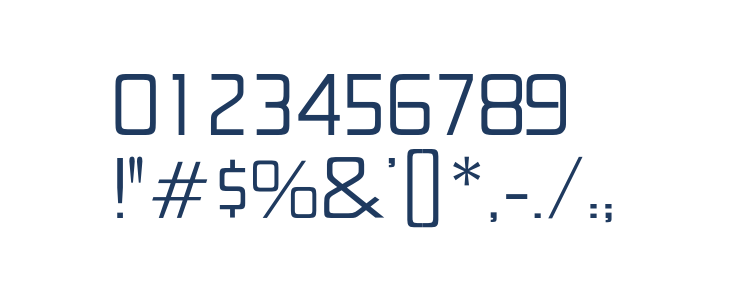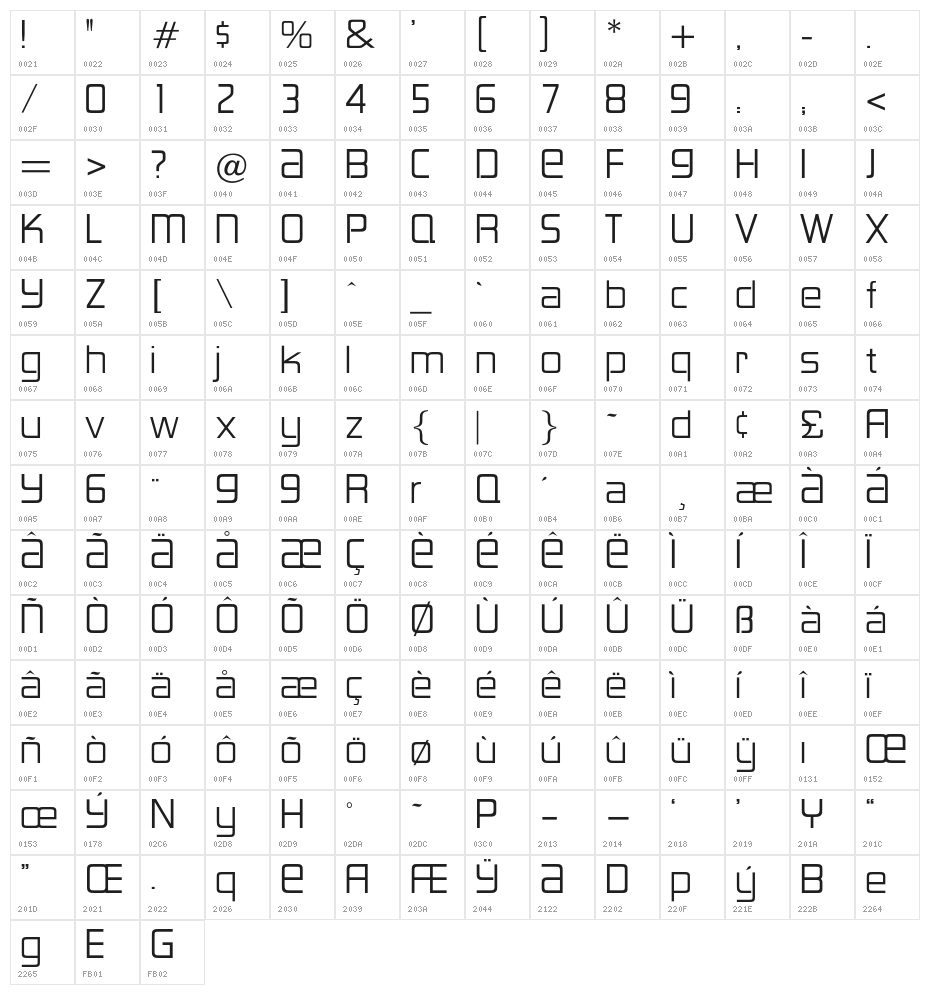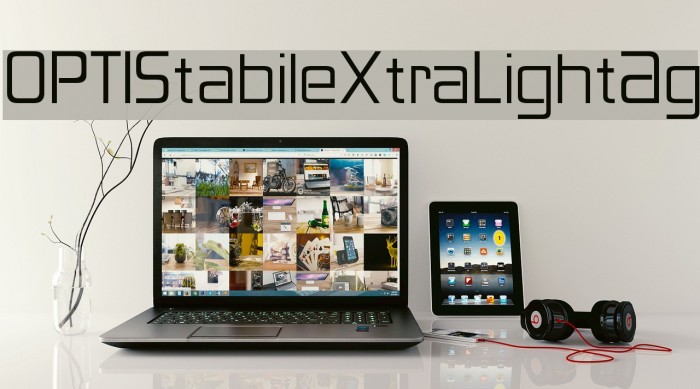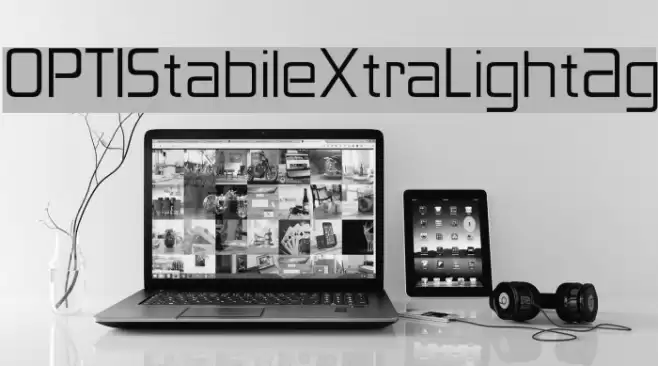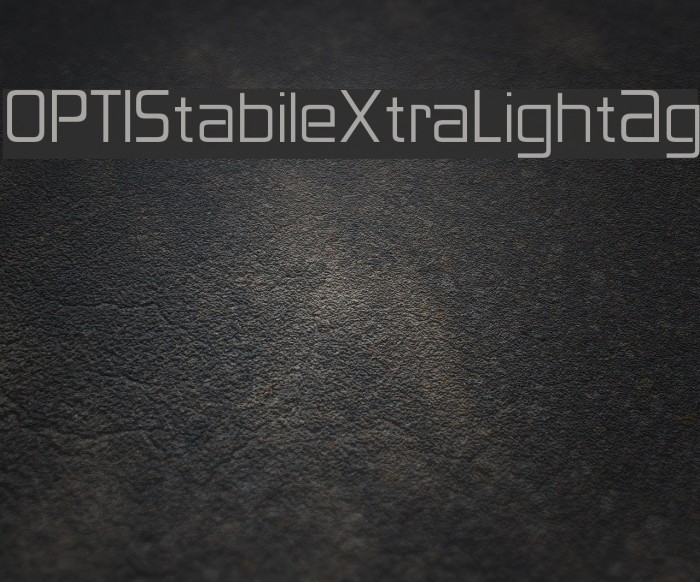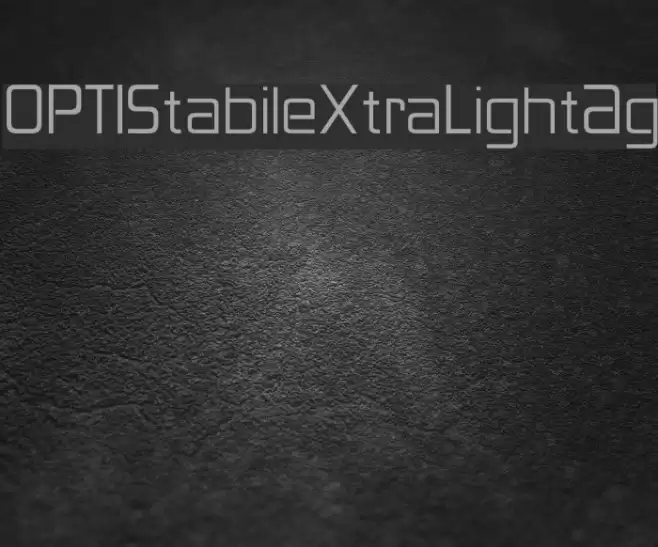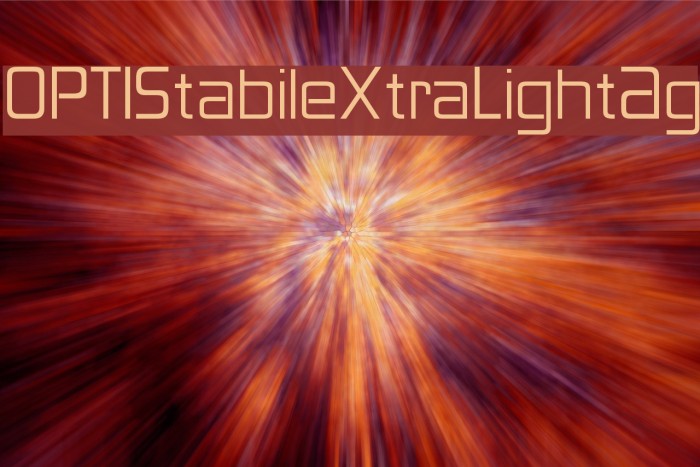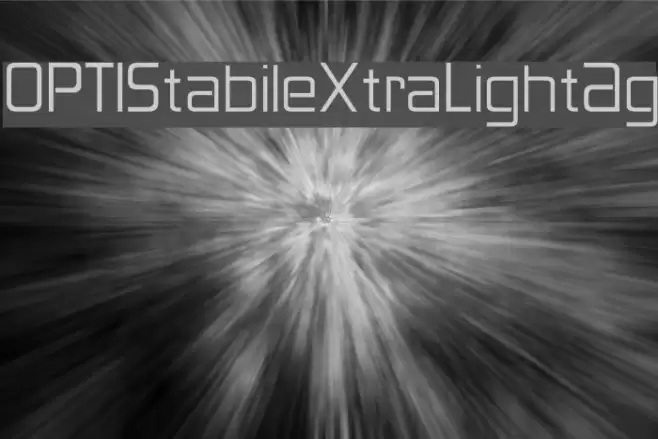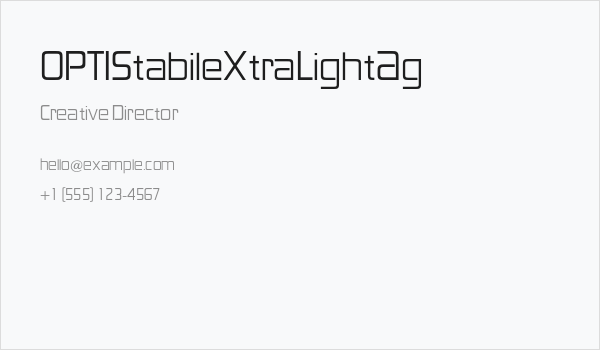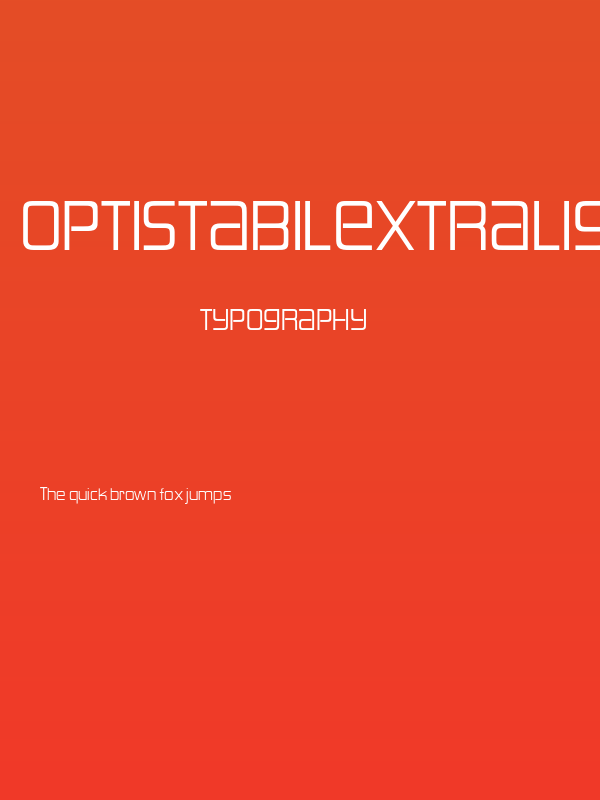
OPTIStabileXtraLightAg Font
OPTIStabileXtraLightAg Description
This font features a clean, geometric design with a modern aesthetic. The characters are constructed with precise, straight lines and rounded corners, giving it a sleek and contemporary look. The uppercase and lowercase letters maintain a consistent height, contributing to a uniform appearance. The numerals and special characters are designed with the same geometric precision, ensuring readability and style. The overall design is minimalistic, making it suitable for a variety of applications where clarity and modernity are desired.
| Use Case | Headlines, Logos, Digital interfaces |
| Proposed Projects | Ideal for tech branding, modern web design, minimalist posters, and digital interfaces. |